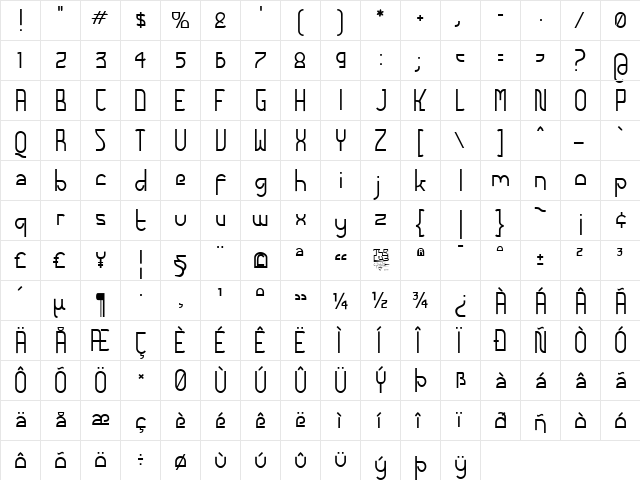
Futurex - AlternateTC Regular
| Designer | Graham Meade & Apostrophe. |
Design Context for Futurex - AlternateTC Typeface
Futurex - AlternateTC channels digital-age aesthetics through its sharp, structured letterforms — ideal for brands that want to signal innovation.